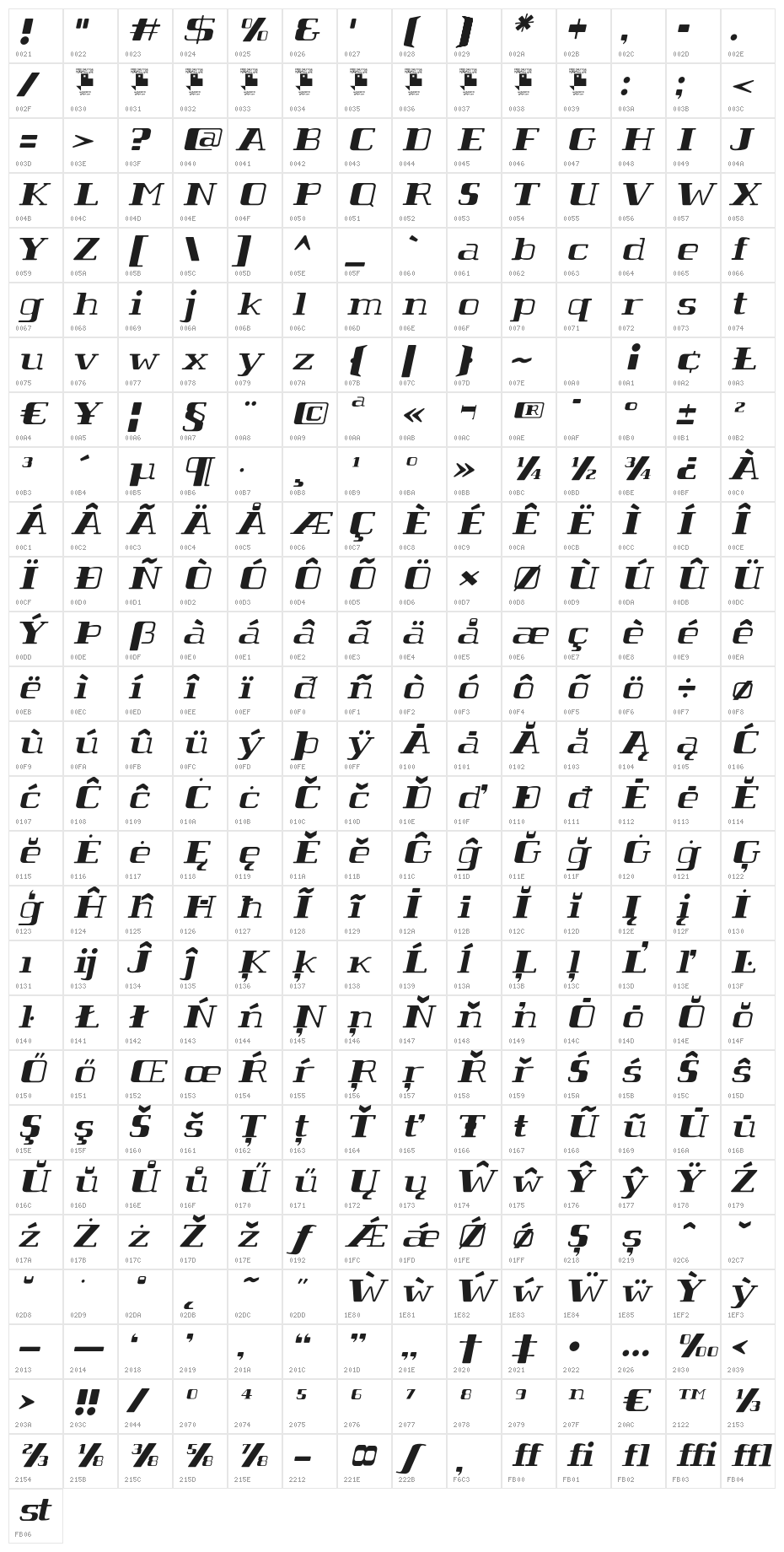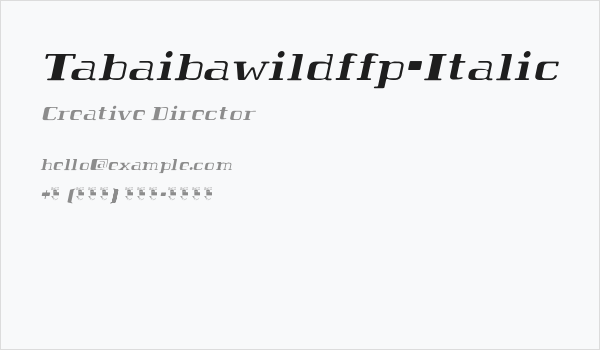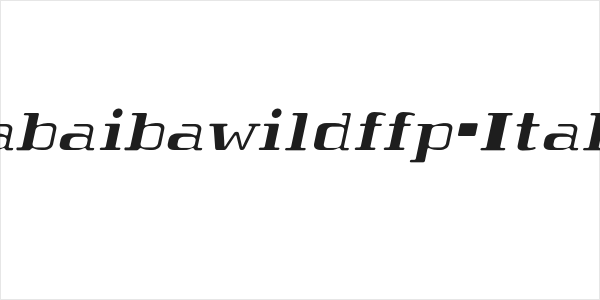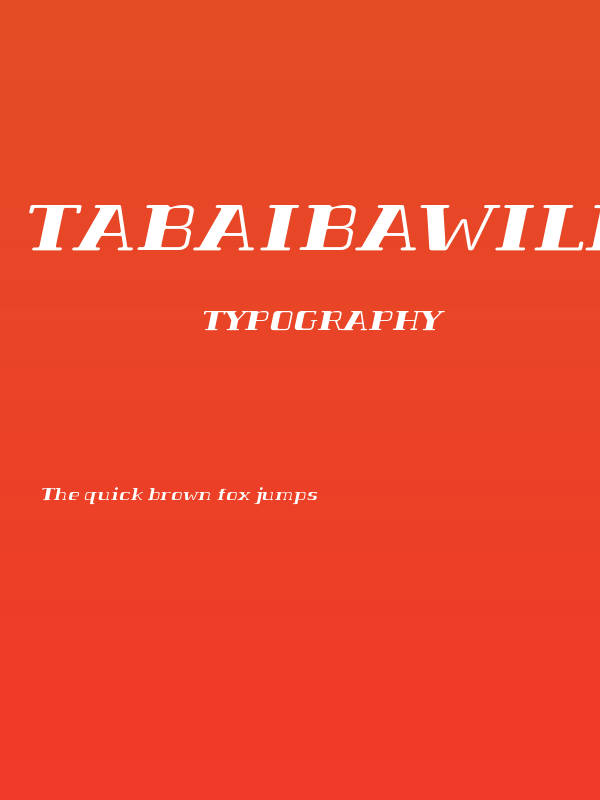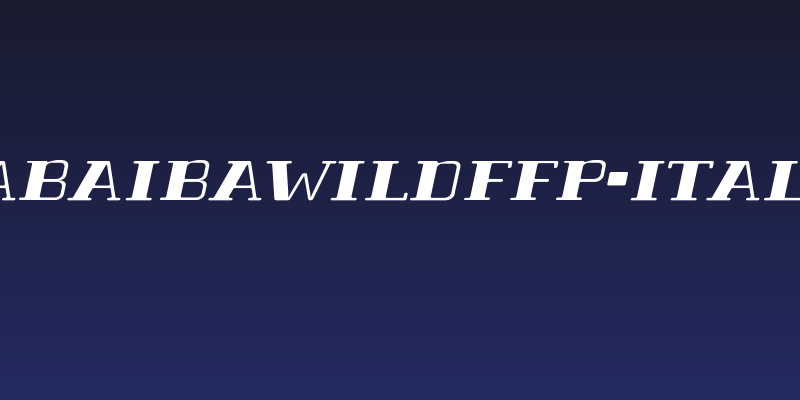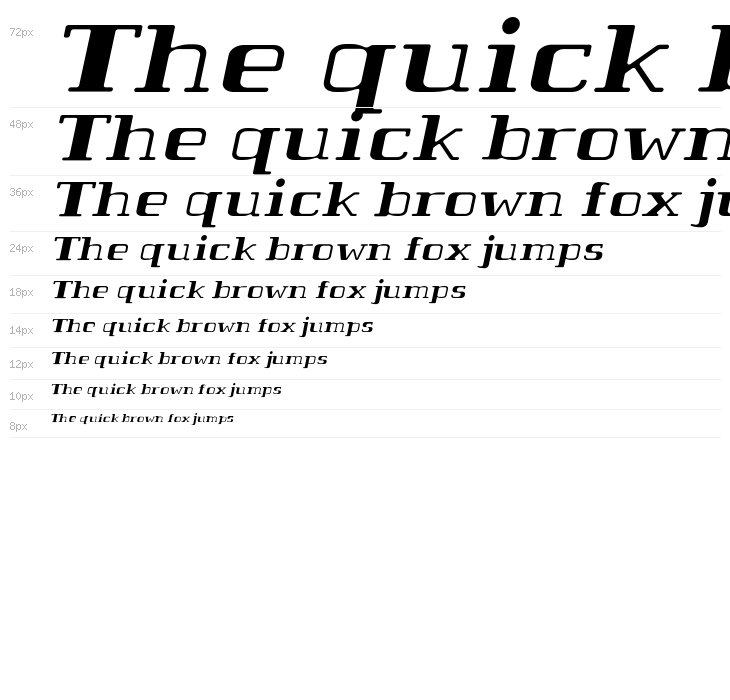
Tabaibawildffp-Italic Font
Tabaibawildffp-Italic Description
This font features a dynamic and modern italic style with a slight slant, giving it a sense of motion and elegance. The characters are well-defined with a moderate stroke contrast, making it suitable for both digital and print media. The uppercase letters are bold and commanding, while the lowercase letters maintain a consistent flow, enhancing readability. The numerals and special characters are designed to complement the alphabet, ensuring a cohesive look across all text elements. This font's unique style makes it versatile for various design applications.
| Proposed Projects | Ideal for branding, advertising, editorial design, and digital media projects. |